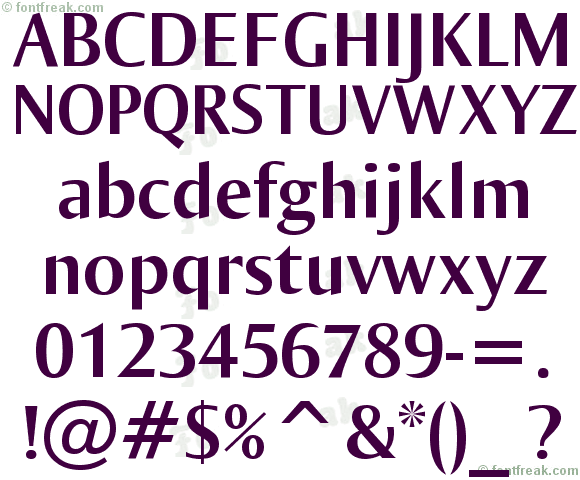
OgiremaBold
About OgiremaBold
OgiremaBold is a striking serif font designed by Manfred Klein, characterized by its bold and commanding presence. This font stands out with its strong stroke weight and moderate contrast, making it ideal for impactful headlines and attention-grabbing text. The letterforms are well-spaced, allowing for excellent readability, while the subtle decorative elements add a touch of elegance without overwhelming the overall design.
Due to its unique visual characteristics, OgiremaBold is particularly well-suited for a variety of applications. It can elevate wedding invitations with its formal touch, enhance movie posters by providing a dramatic flair, and bring a level of sophistication to restaurant menus. Additionally, it works beautifully for branding materials, where a distinctive typeface can leave a memorable impression on potential customers.
What sets OgiremaBold apart is its balance of strength and elegance. It combines the traditional aspects of serif fonts with a modern boldness, making it versatile enough for both formal and contemporary uses. Whether you're designing an elegant wedding invite or an eye-catching advertisement, the OgiremaBold font free download provides a stylish solution that captures attention and conveys professionalism. With its unique qualities, OgiremaBold is an excellent choice for those looking to make a lasting impact with their typography.